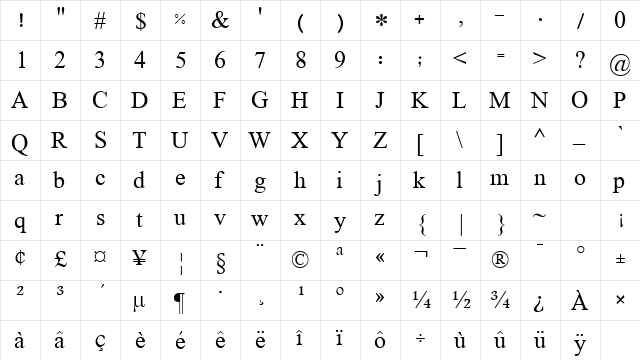
Koodak Mazar Regular
Design Context for Koodak Mazar Typeface
Koodak Mazar is a composed and adaptable typeface that performs quietly and consistently across a wide range of design contexts.